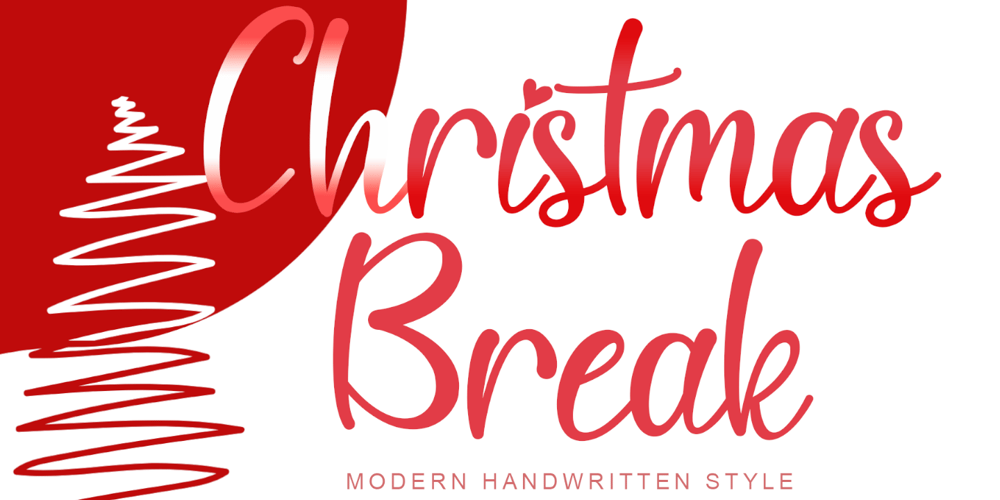
Christmas Break Font Family was designed by Isroni Yoga Prasetya and published by Yoga Letter. Christmas Break contains 1 styles and family package options. “Christmas Break” is a beautiful handwritten font. This font is perfect for weddings, Christmas, stickers, banners, posters, photography, engagements, and more. Equipped with uppercase, lowercase, numerals, punctuation, swash, titling, and multilingual support